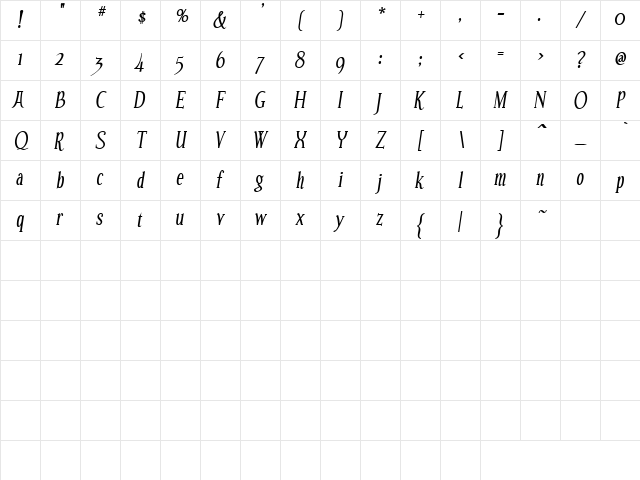
PC Thanks Elegance Regular
Design Context for PC Thanks Elegance
PC Thanks Elegance is a composed and adaptable typeface that performs quietly and consistently across a wide range of design contexts.
Pro Tip: Use PC Thanks Elegance in both headline and body roles to test its range before committing to a single application.